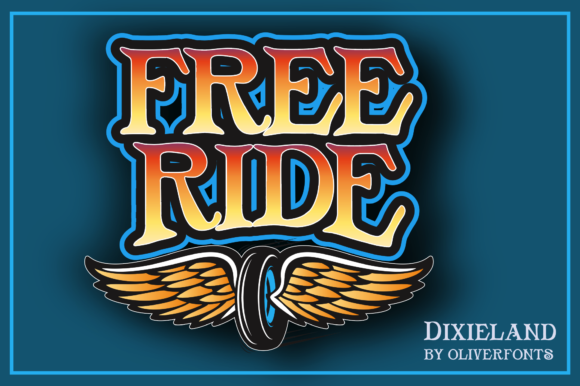
Step into the captivating realm of Dixieland Font, a serif font that embodies the spirit of southern charm with its loose, casual, and creative strokes. This remarkable font, created by the talented OLIVERFONTS, was hailed as the "Best Font for Web Design 2014" for its refreshing style and bold presence.
With Dixieland Font, your designs will exude a sense of nostalgia and authenticity. Its unique character adds a touch of whimsy and playfulness to any project, making it ideal for creating logos, branding, posters, social media graphics, and more. Unleash your creativity and let Dixieland Font elevate your designs to new heights.
Experience the allure of Dixieland Font, a serif font that captures the essence of southern charm and creativity. Its loose and casual strokes evoke a sense of nostalgia, while its bold presence commands attention. Whether you're designing logos, branding, posters, social media graphics, or any other project, Dixieland Font will add a touch of uniqueness and charm.
Embrace the versatility of Dixieland Font, a serif font that effortlessly adapts to a wide range of design styles. Its timeless charm shines through in traditional settings, while its modern twist adds a contemporary edge to contemporary projects. Dixieland Font is the perfect choice for designers seeking a font that seamlessly blends classic elegance with a touch of modernity.
With Dixieland Font, you'll discover a font that sparks imagination and ignites creativity. Its bold strokes and playful character create a visual impact that captivates audiences. Whether you're designing for print or digital media, Dixieland Font will elevate your designs and leave a lasting impression.